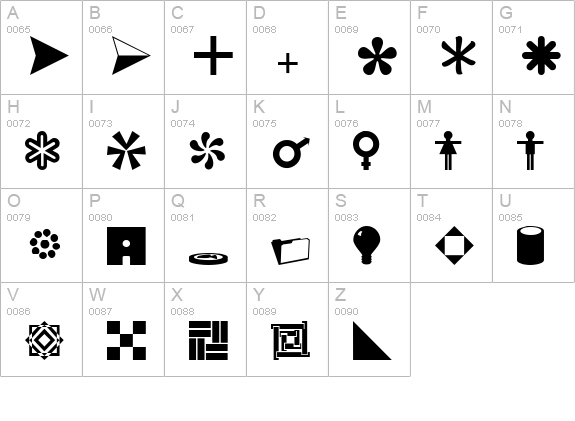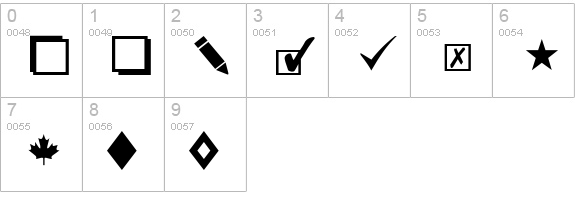
Symbols Normal is the standard, neutral variant in the Symbols typeface family \xE2\x80\x94 well suited to general body text, paragraphs, and standard typographic work.
Symbols Normal font is a versatile and stylish typeface that will add a touch of elegance to any design project. This font features a wide range of symbols and icons that can be used in various creative applications. With its clean lines and modern aesthetic, Symbols Normal font is perfect for both digital and print projects. Best of all, this font is completely free to download at FontsMarket.com. Whether you're working on a logo, website, or other visual project, Symbols Normal font is a great choice for adding a unique and eye-catching element. Download it today and start incorporating these beautiful symbols into your designs!